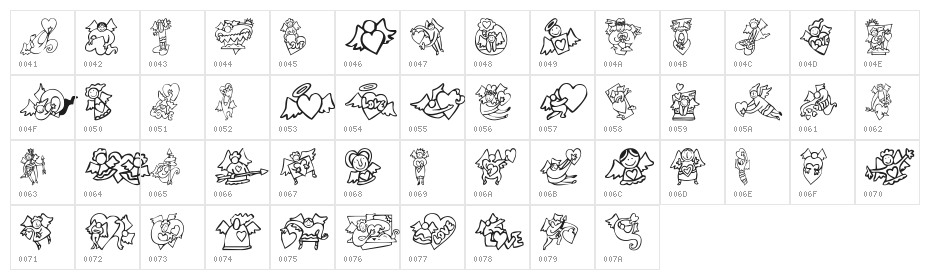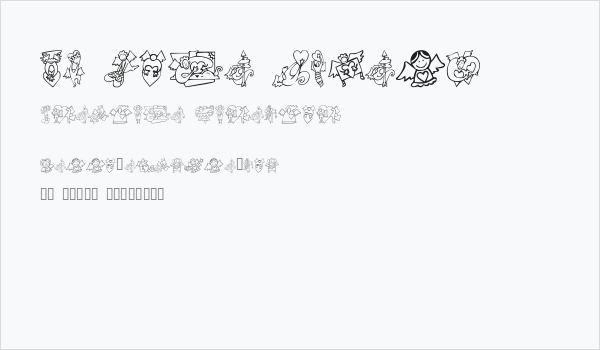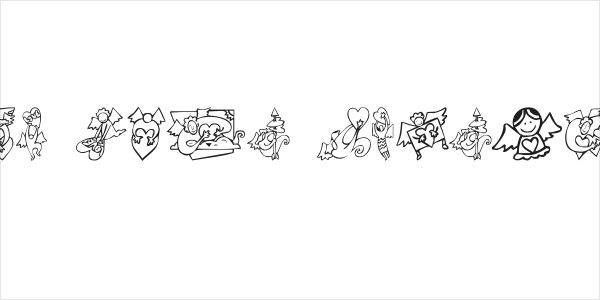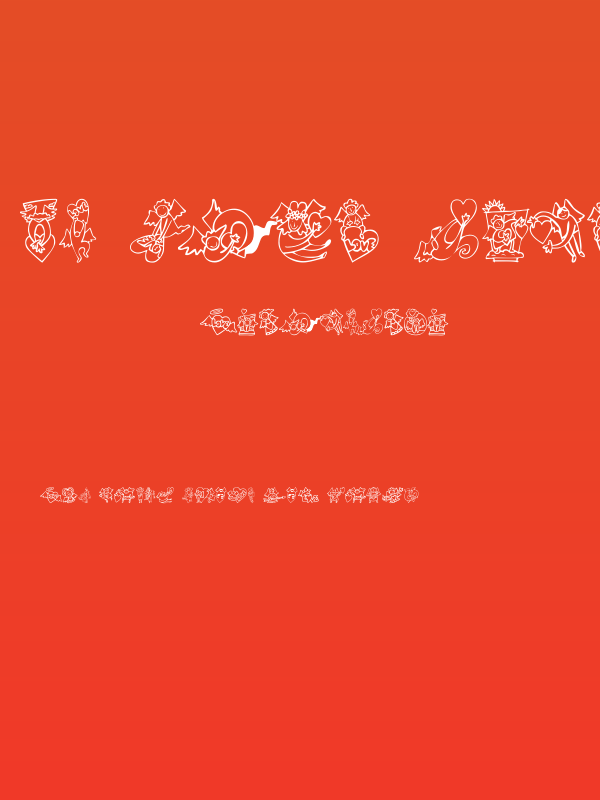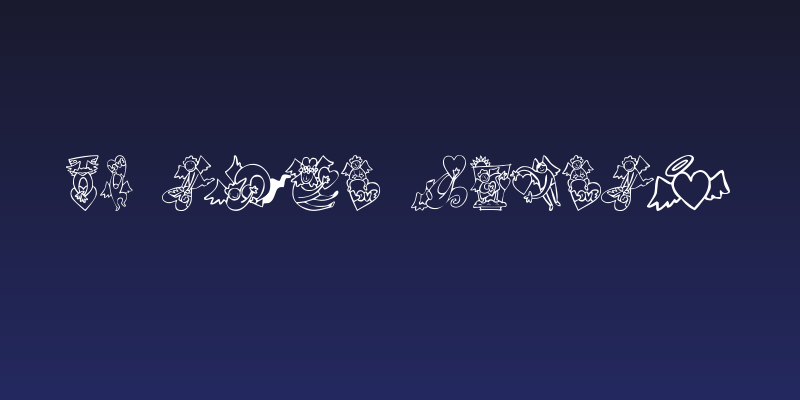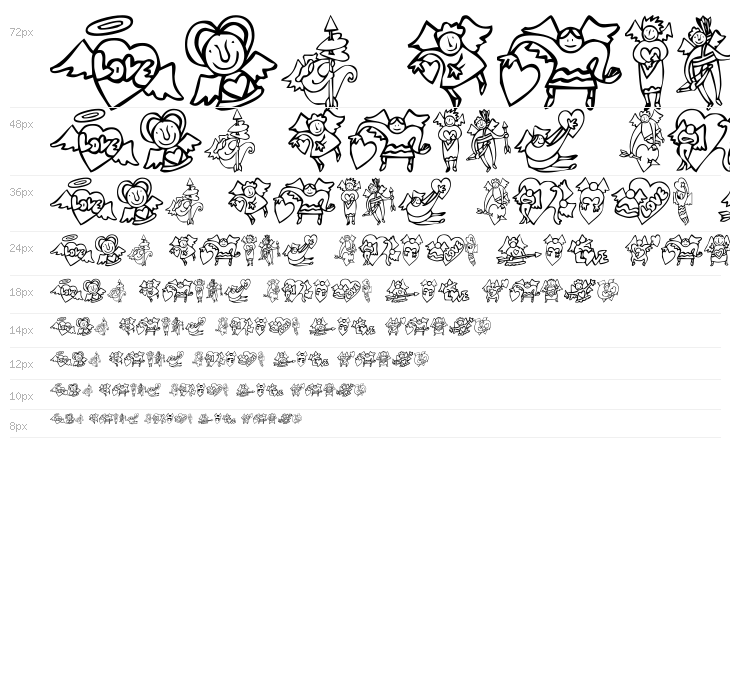
KR Love Angels Font
KR Love Angels Description
This font is a whimsical and playful collection of doodle-like illustrations featuring angels, hearts, and love-themed elements. Each character is a unique drawing, incorporating elements such as wings, halos, and various expressions of affection. The style is hand-drawn, with a casual and light-hearted feel, making it ideal for projects that require a touch of romance or fun. The characters are detailed and expressive, capturing a sense of joy and creativity. The font does not include traditional alphabetic or numeric characters, focusing instead on its decorative illustrations.
| Use Case | Logos, Decorative elements |
| Proposed Projects | Ideal for Valentine's Day cards, wedding invitations, romantic scrapbooking, and playful graphic design projects. |